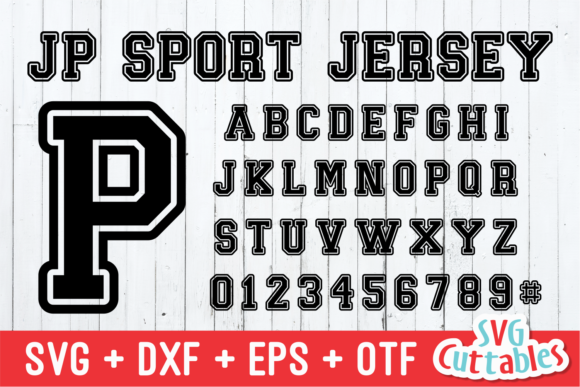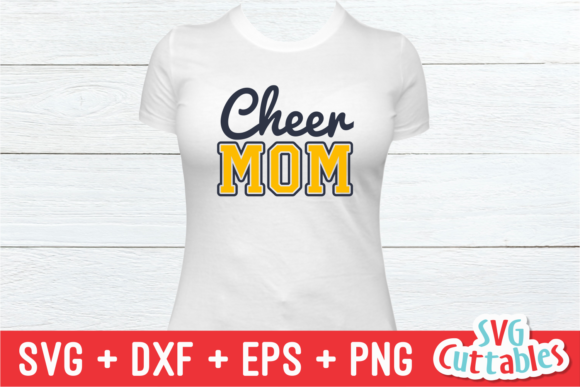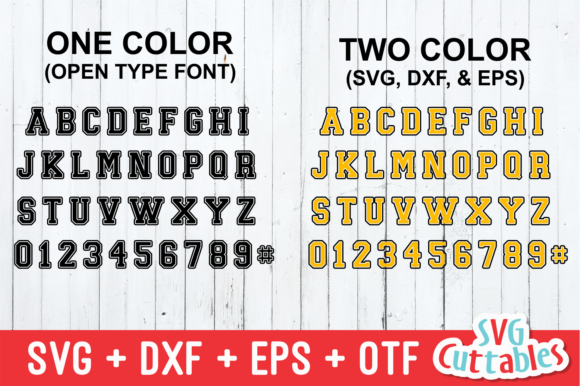
JP Sport Jersey: A Fun and Bold Slab Serif Font
JP Sport Jersey is a playful and bold slab serif font that adds a unique touch to your designs. Whether you’re using it for crafts, digital design, presentations, or making greeting cards, this font can become your favorite go-to choice for any occasion.
Key Features of JP Sport Jersey
- Bold Design: Features strong letterforms that stand out in any project.
- Playful Aesthetic: Offers a fun vibe suitable for various creative applications.
- Slab Serif Structure: Maintains the thick, rectangular serifs typical of slab serif fonts.
- Versatile Application: Perfect for sports-themed designs and beyond.
- Easy to Use: Simple to integrate into various design contexts.
Ideal Uses for JP Sport Jersey
This font is particularly well-suited for:
- Sports team branding and logos
- Athletic event posters and promotional materials
- Social media graphics aimed at sports enthusiasts
- Craft projects related to sports themes
- Greeting cards for sports events or celebrations
When incorporating JP Sport Jersey into your designs, consider these tips:
- Use for headlines or short text to maximize its bold impact.
- Experiment with sizes to highlight its playful character.
- Pair with simpler fonts for body text to create contrast.
- Take advantage of its versatility across various sports-related projects.
JP Sport Jersey is an excellent choice for designers looking to add a fun and bold slab serif font to their collection. Its ability to enhance various projects makes it stand out in the world of typography. Whether you’re working on logo designs, creating layouts for athletic events, or developing content that requires a lively touch, JP Sport Jersey offers the perfect blend of fun and functionality.
Add JP Sport Jersey confidently to your creative ideas and let yourself be amazed by the outcomes it generates. From eye-catching posters to engaging branding elements, this font provides the tools to create impactful typography that resonates with audiences seeking a dynamic aesthetic. It’s versatile enough for various contexts, from vintage-inspired designs with a sporty twist to cute and friendly layouts.
If you’re aiming for a more magical atmosphere, JP Sport Jersey can adapt easily. Its flexibility allows it to shine in both rustic projects and holiday-themed designs. For those looking to add a touch of nostalgia with a modern feel, this font can even complement vintage Christmas-inspired creations.